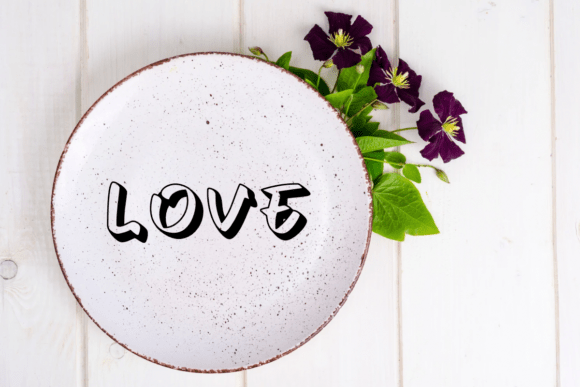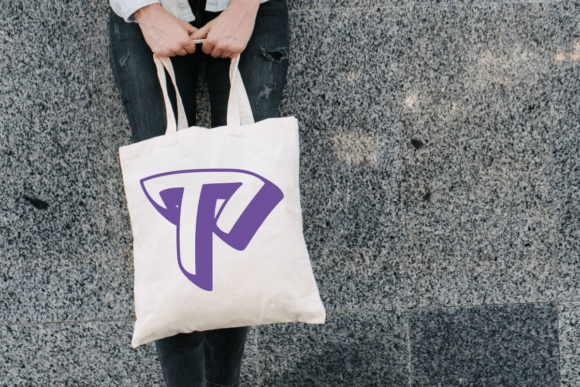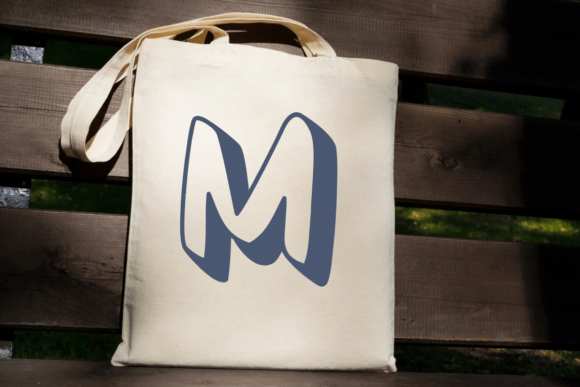
Introduction to Pet Day Font
Pet Day is a handwritten font.
You can use it for taking notes, a diaryor, making greeting cards However, you can still use it for other designs, such as banners, content, mugs, cards, shirts, stationery, social media posts, and more.
Key Features of Pet Day Font